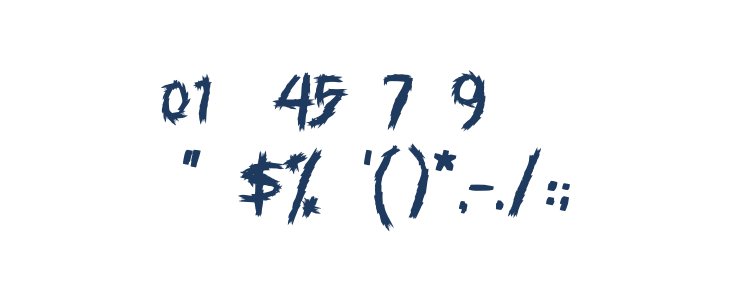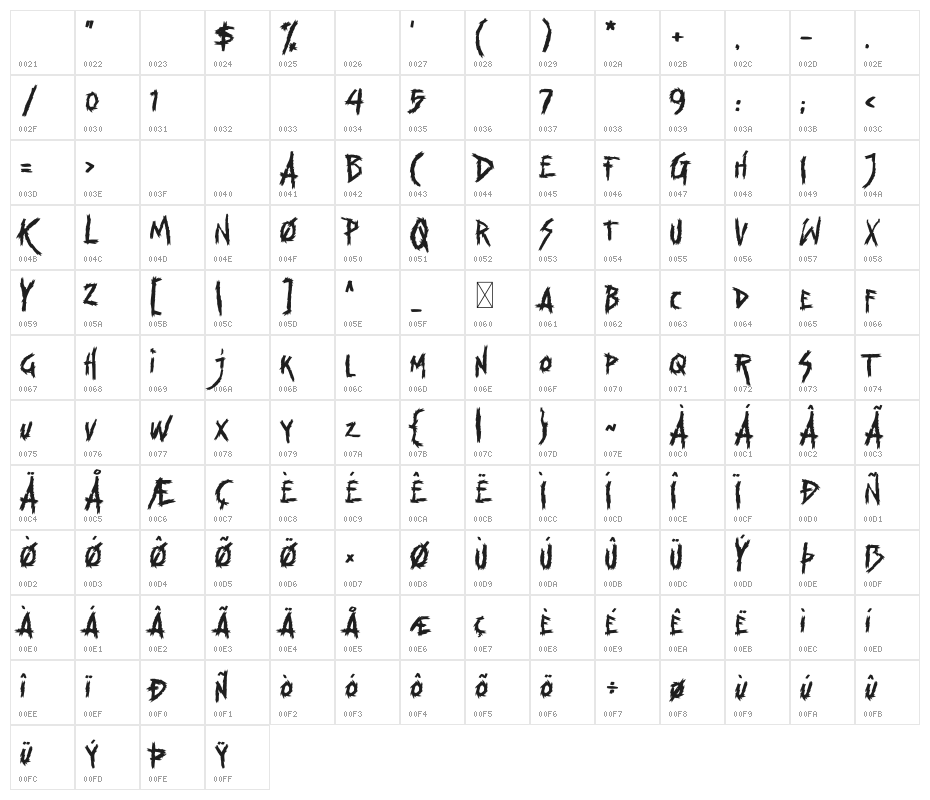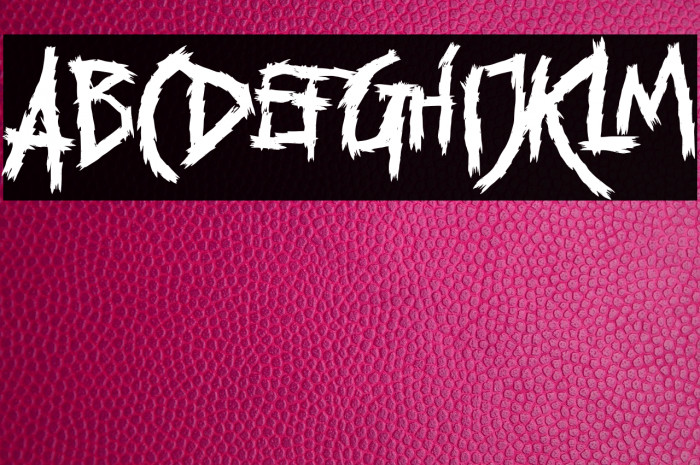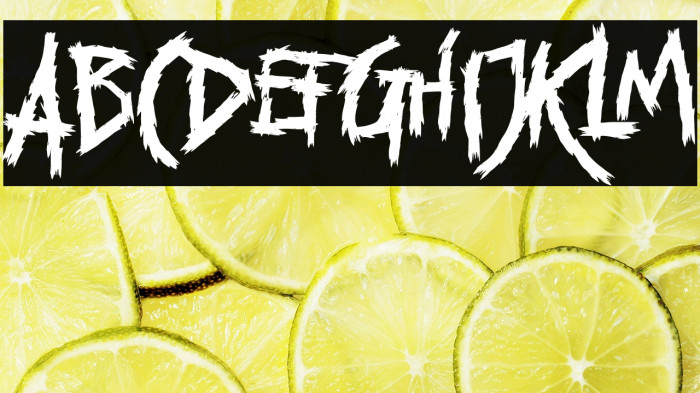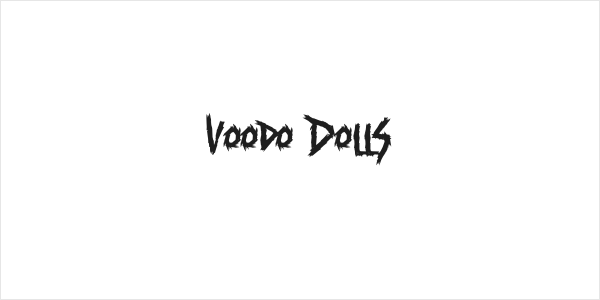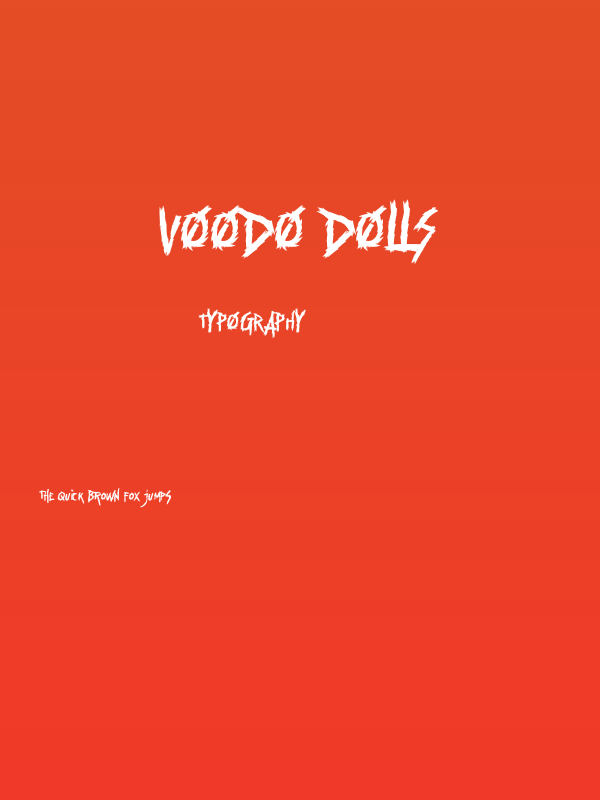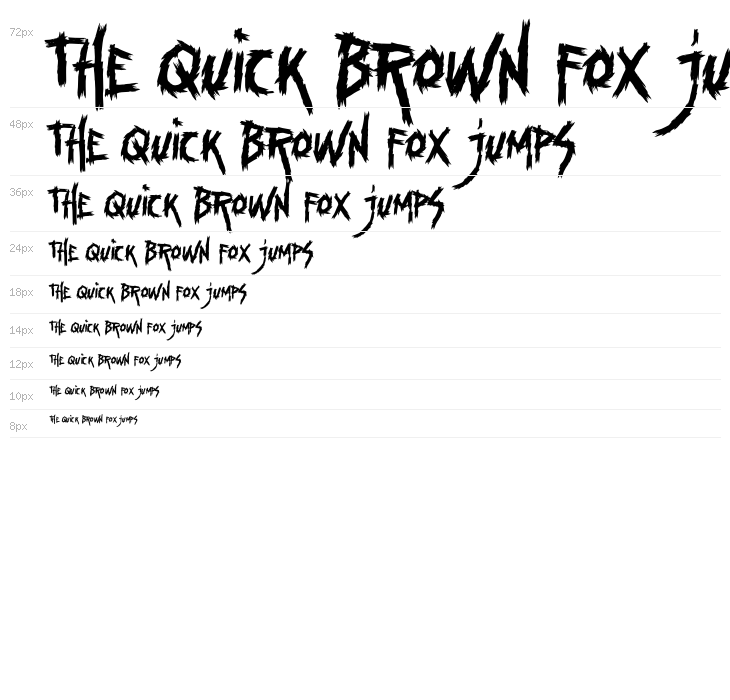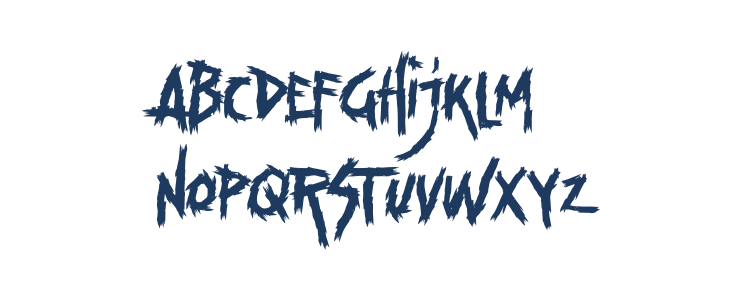
Voodo Dolls Font
Voodo Dolls Description
This font exudes a raw, edgy aesthetic with its jagged, irregular strokes that mimic the appearance of torn fabric or rough brushwork. The characters are bold and dynamic, each letter appearing as if it has been scratched or carved, giving it a distinctly rebellious and untamed feel. The uppercase and lowercase letters maintain a consistent style, with sharp angles and uneven lines that create a sense of movement and energy. The numbers and special characters follow the same rugged design, ensuring a cohesive look across all elements. This font is perfect for projects that require a dramatic, eye-catching typeface that stands out with its unique and unconventional style.
Proposed ProjectsIdeal for horror-themed designs, edgy posters, album covers, or any project needing a dramatic, standout typeface.